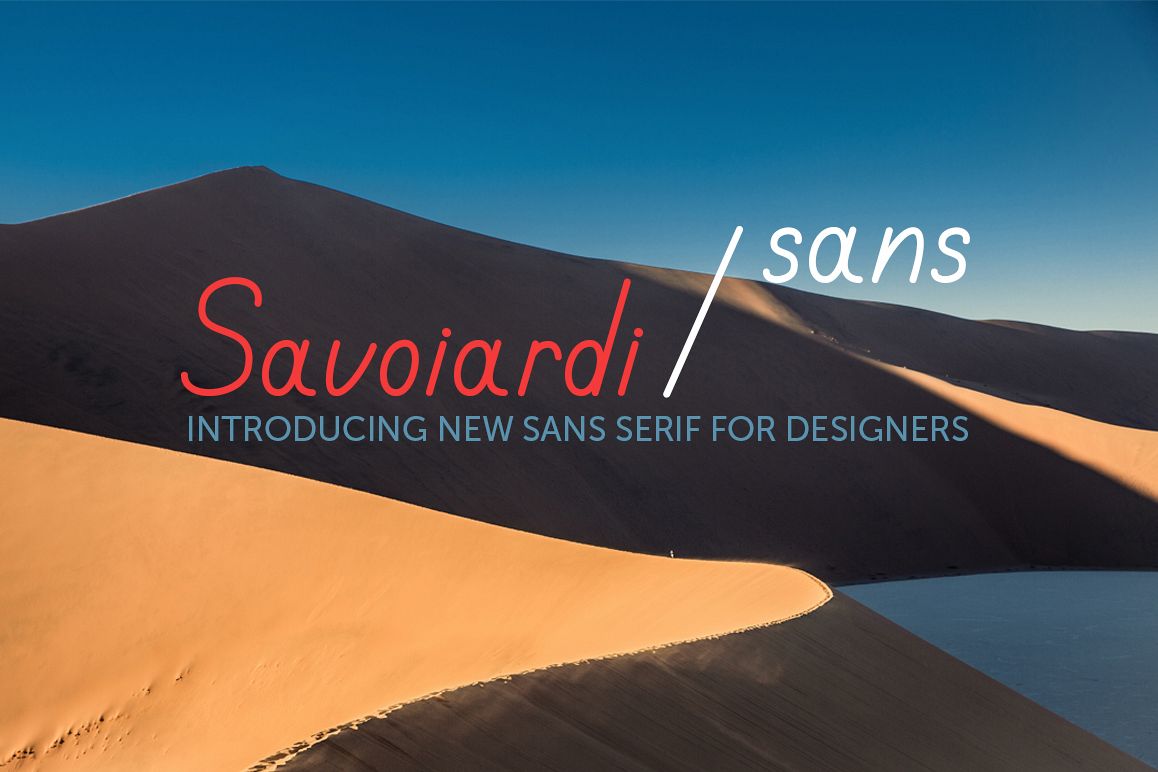
Savoiardi Sans
Savoiardi-sans
Here is my brand new mono line sans serif.
• Multi language symbols are included.
• Perfectly fits to Savoiardi Script
• Kerned with love
Savoiardi Sans